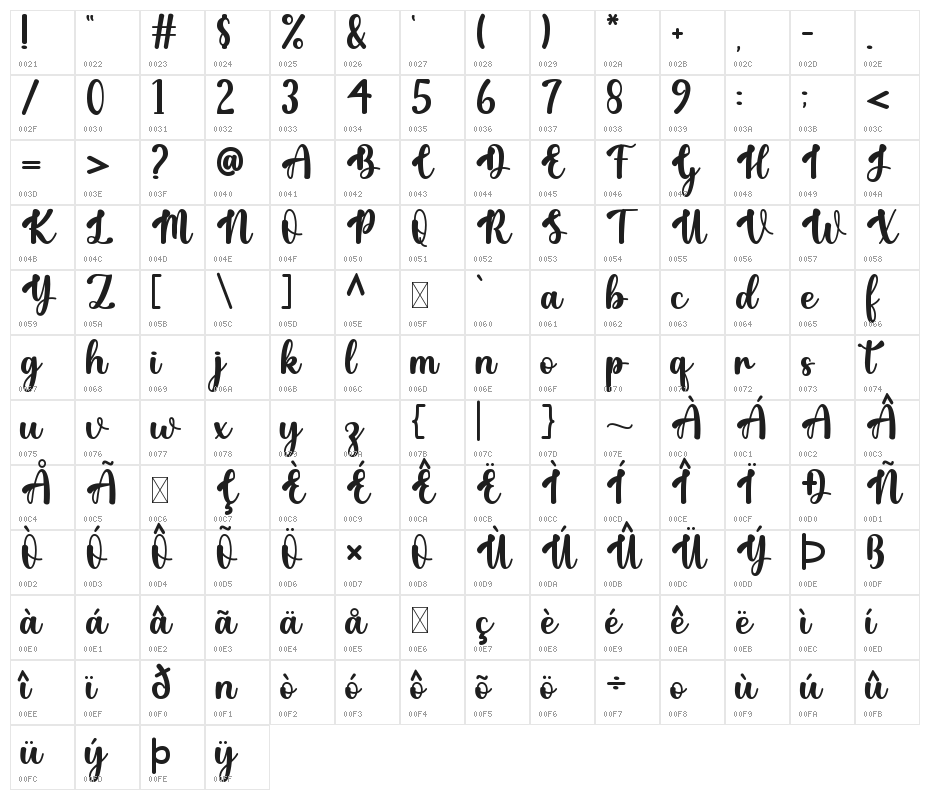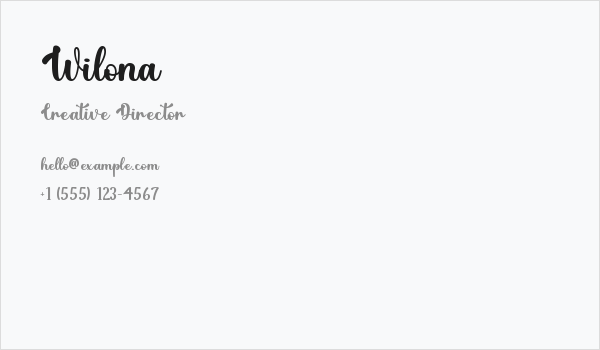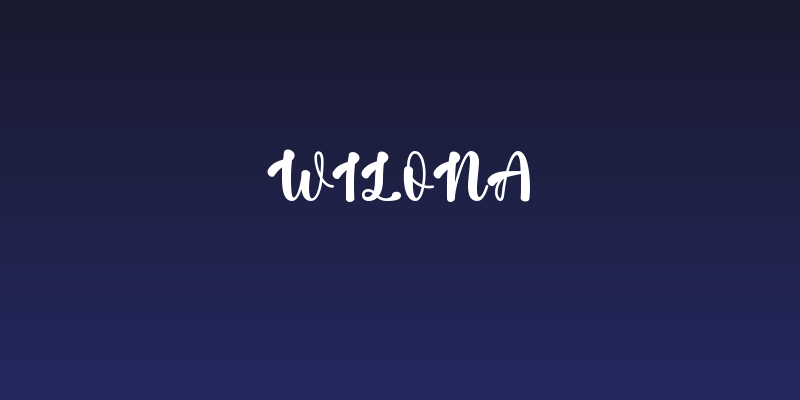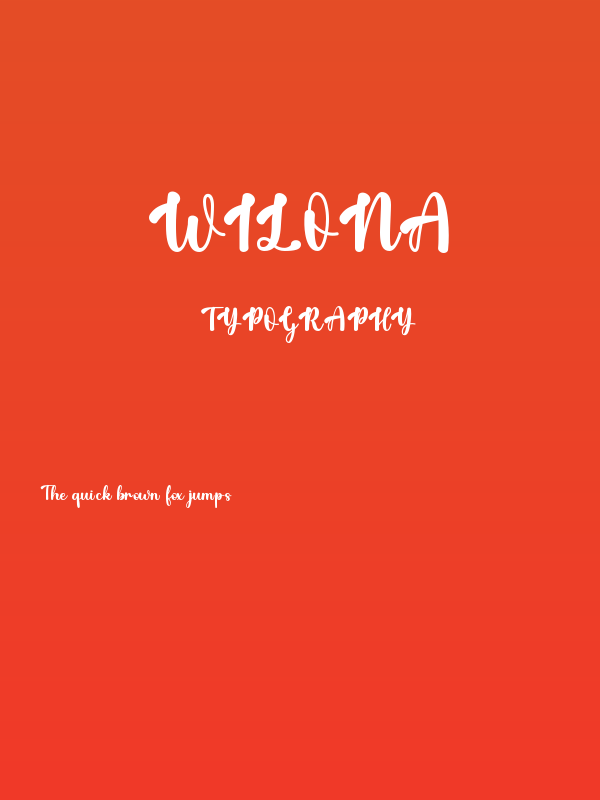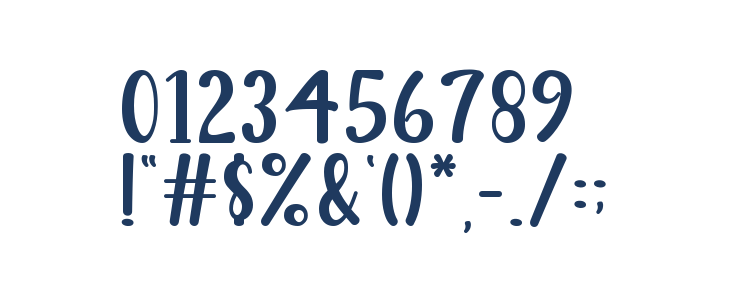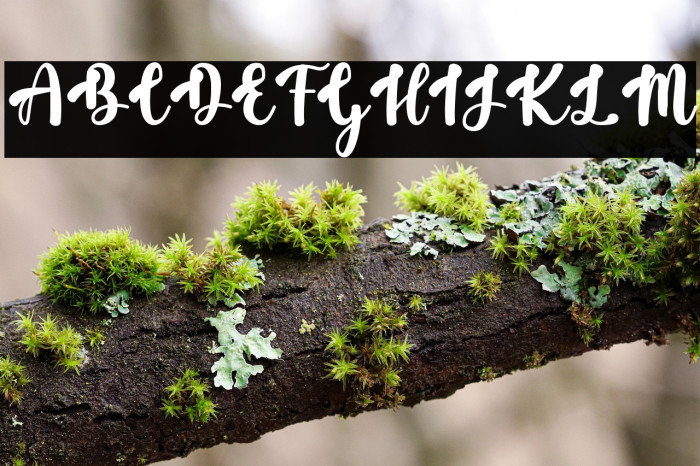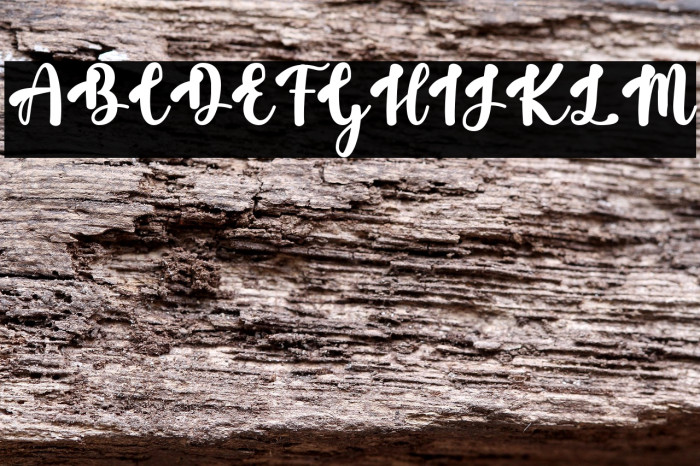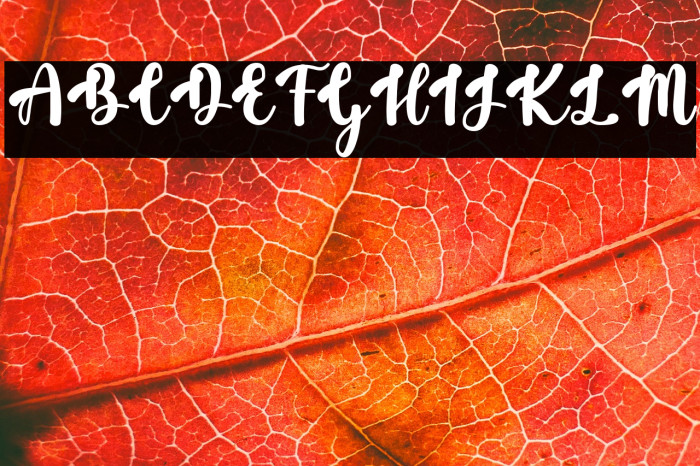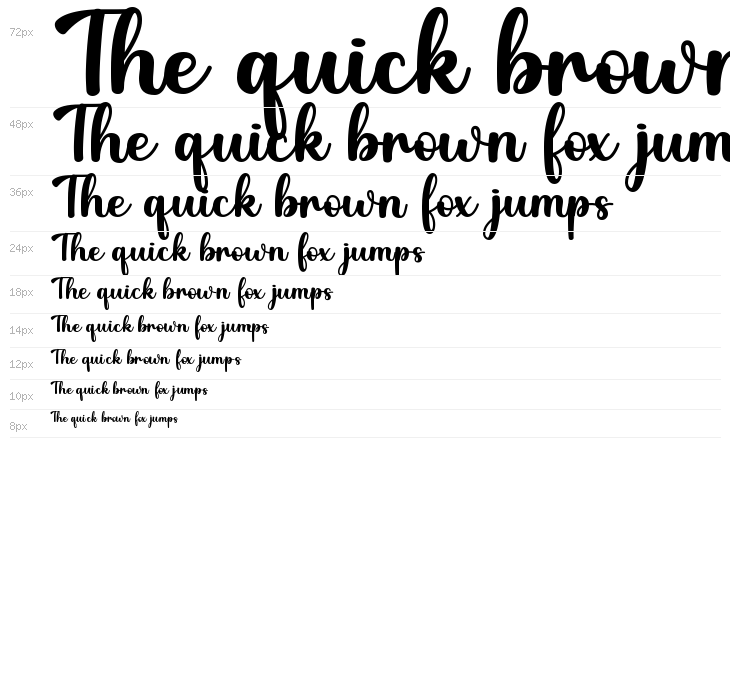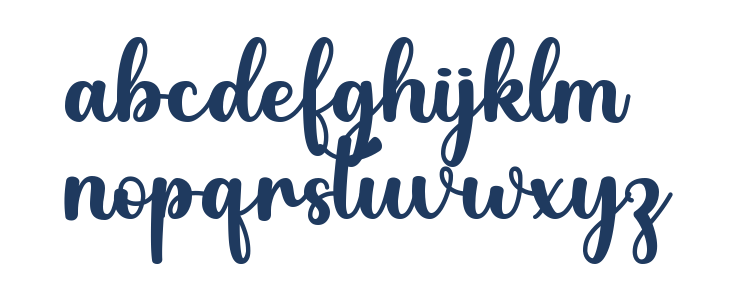
Wilona Font
Wilona Description
This font features a bold and flowing script style, characterized by its smooth, cursive strokes and elegant curves. The uppercase letters are distinct with their looping ascenders, while the lowercase letters maintain a consistent flow, creating a harmonious and connected appearance. The numbers and special characters complement the alphabet with similar fluidity and boldness. This font exudes a sense of creativity and sophistication, making it ideal for projects that require a personal and artistic touch.